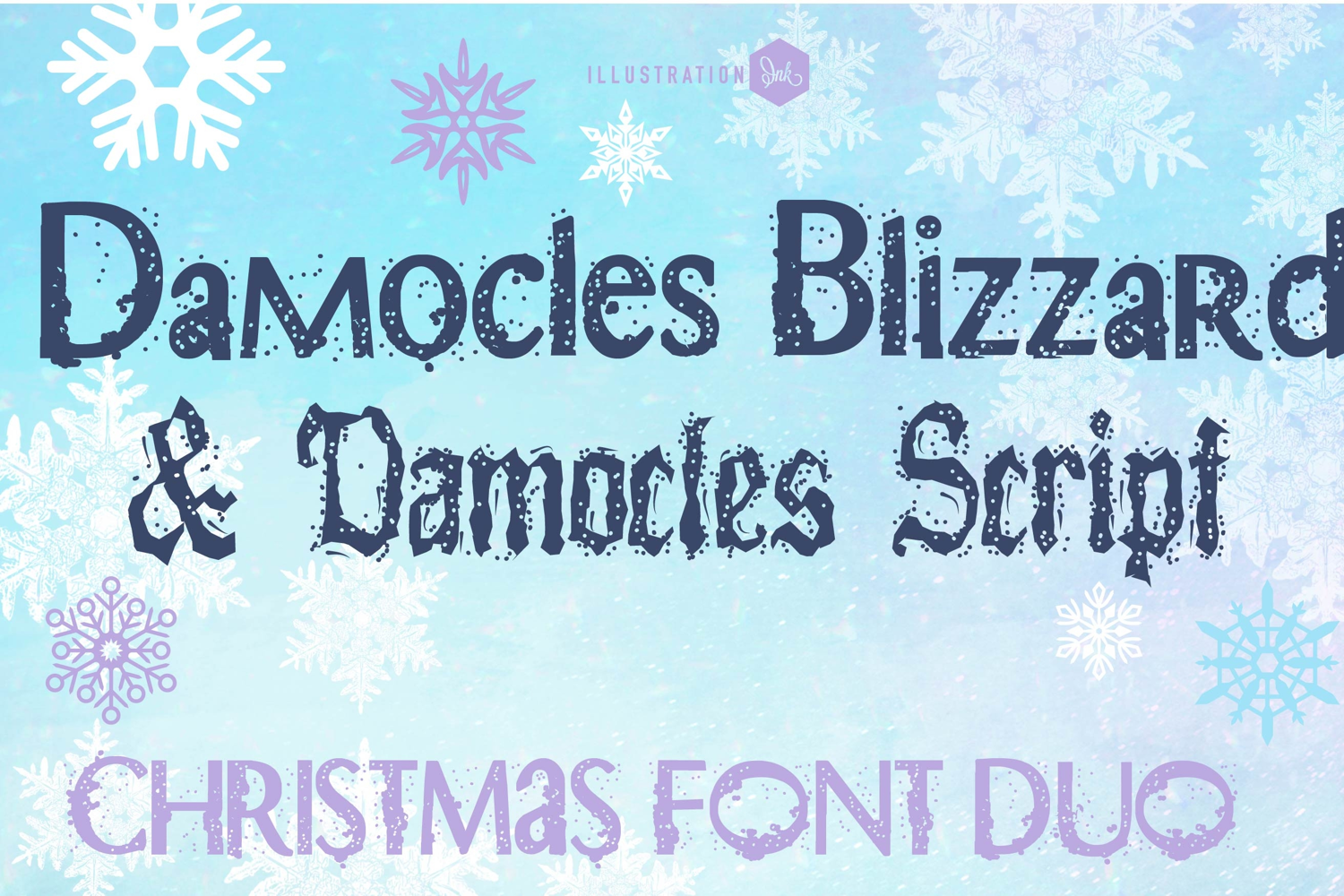
Damocles Blizzard Font Duo
This hand-crafted font duo combines a hand-crafted, grungy font sporting snow, and a perfectly coordinated blackletter font. Bonus tag dingbat font included! With all family members combined of the 2 fonts, you get 8 fonts all together!
Hand-crafted fonts can be either formal or informal, and they can be used for a variety of purposes. Some of the characteristics of handwritten fonts include: The letters are not perfectly uniform in size or shape. There may be slight variations in the spacing between letters and words. The font may have a "wiggly" or "squiggly" appearance. The font may be difficult to read at small sizes. Handwritten fonts can be a great way to add a casual touch to your designs. They can also be used to create a sense of nostalgia or whimsy. However, it is important to choose a handwritten font that is appropriate for the project you are working on. A formal handwritten font may not be appropriate for a casual invitation, while an informal handwritten font may not be appropriate for a corporate document.
• The letters are not perfectly uniform in size or shape.
• There may be slight variations in the spacing between letters and words.
• The font may have a "wiggly" or "squiggly" appearance.
• The font may be difficult to read at small sizes.